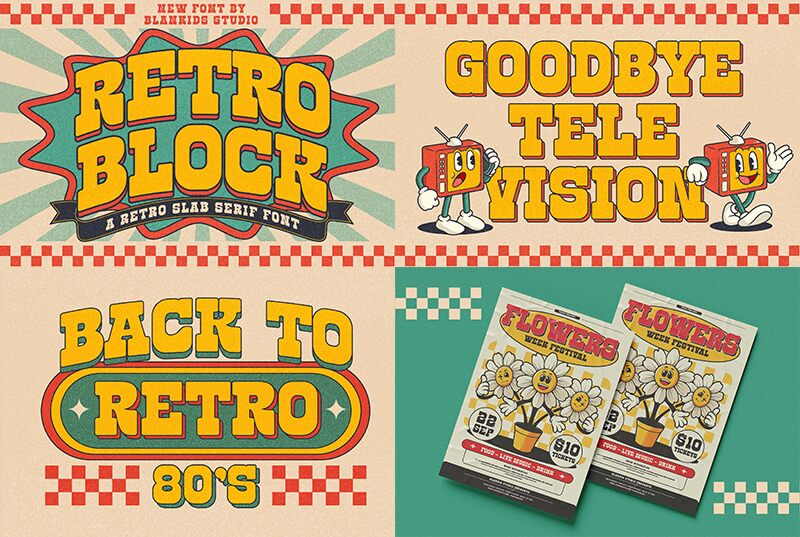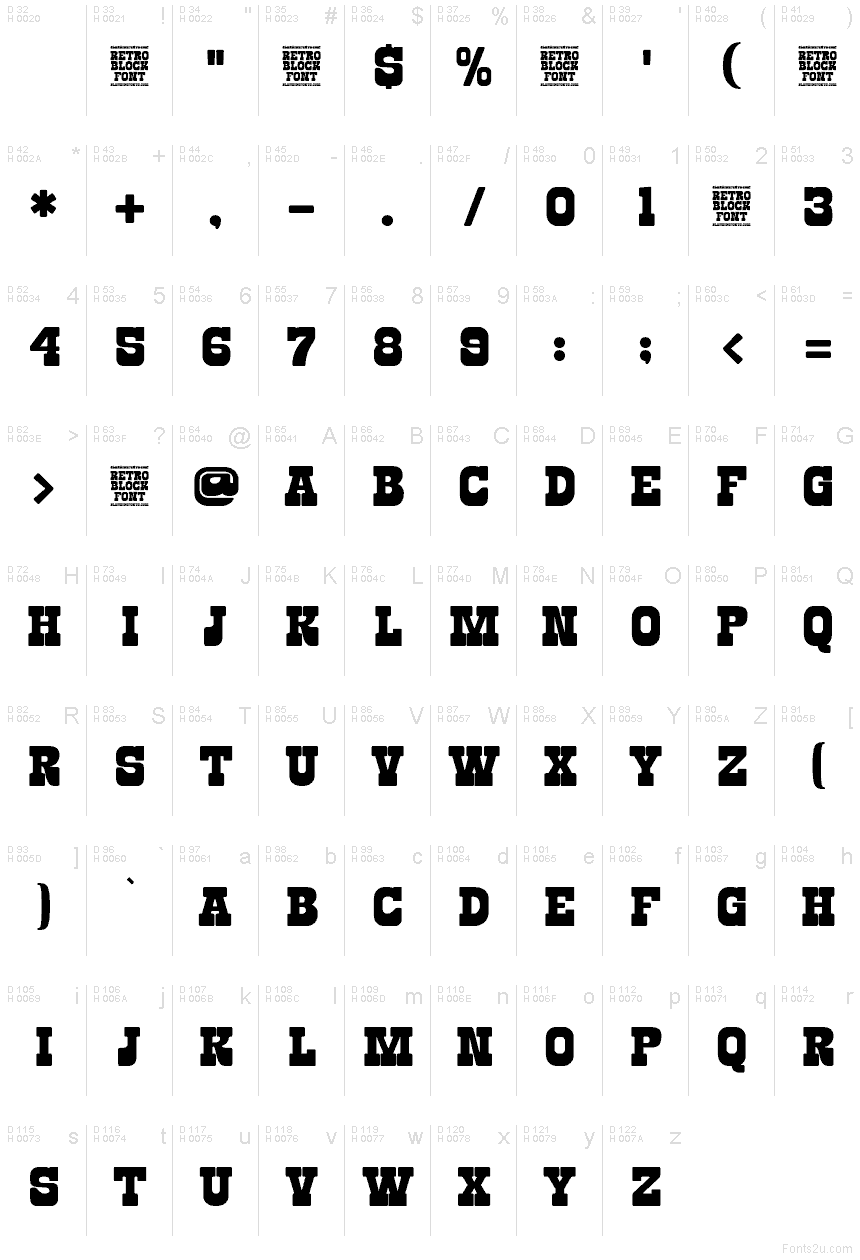
Retro Block Regular
Retro Block font by Blankids is a free western display typeface with thick, slabby strokes and a bold, saloon-style stance. Each letter feels like it’s been stamped onto wood: chunky, square, and tightly spaced, with just enough curves to keep it friendly rather than harsh. The solid, inky shapes read fast and loud, making a single word look like a poster headline from an old rodeo or circus wagon.
Using Retro Block, you can nail anything that needs a rugged throwback vibe—BBQ packaging, bar logos, country music covers, event posters, signage, or bold social graphics. This free font really shines at large sizes where its blocky rhythm can shout across a page or screen. Pair Retro Block with a clean, light sans-serif for body text to keep the vintage drama up top and the details easy to read.